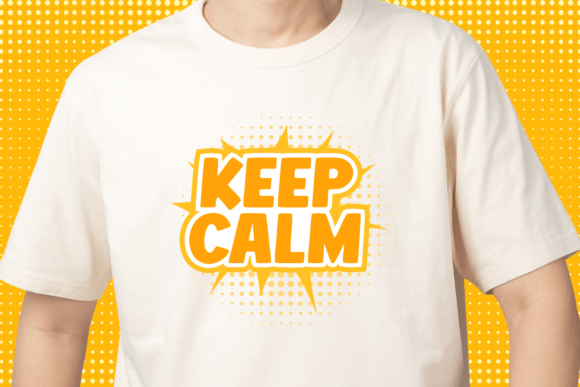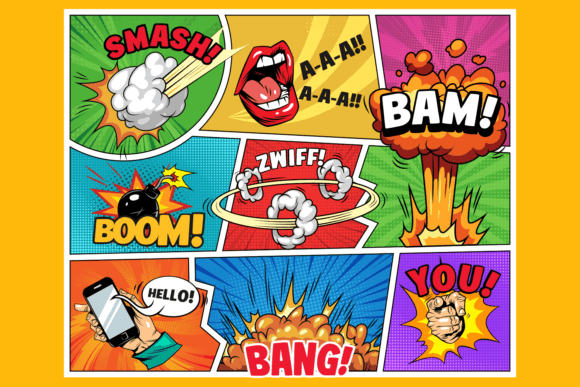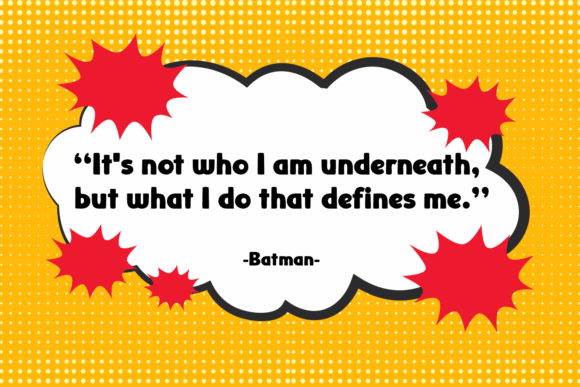
Discover the Charm of Brody Comic Font: Elevate Your Creative Projects
Are you on the hunt for a font that can add a playful yet impactful touch to your creative projects? Look no further than the Brody Comic Font. This lovely comic-style display font is making waves in the design community, and for good reason. Its thick, beautiful lines make it the perfect addition to any designer’s font library.
What Makes Brody Comic Font So Special?
Brody Comic Font stands out from the crowd with its unique blend of playfulness and sophistication. Here are just a few reasons why designers and crafters are falling in love with this font:
- Comic-Style Charm: Brody Comic Font boasts a classic comic-style aesthetic that’s sure to capture attention. Its bold lines and vibrant personality make it perfect for projects that require a fun and energetic vibe.
- Versatility: Despite its bold appearance, Brody Comic Font is surprisingly versatile. It can be used for a wide range of projects, from posters and flyers to digital graphics and craft projects.
- Easy to Read: One of the key benefits of Brody Comic Font is its readability. Even at larger sizes, the font remains clear and easy to read, making it perfect for headlines, titles, and short paragraphs of text.
So, what can you create with Brody Comic Font? The possibilities are truly endless. Here are a few ideas to get you started:
- Posters and Flyers: Use Brody Comic Font to create eye-catching posters and flyers for events, promotions, or announcements.
- Digital Graphics: Add a playful touch to your social media graphics, blog posts, and website headers with this charming font.
- Craft Projects: Brody Comic Font is perfect for crafters who love to make handmade cards, scrapbook pages, and other paper crafts.
- Branding and Packaging: Use Brody Comic Font to create bold, eye-catching branding and packaging that stands out on store shelves.
Tips for Using Brody Comic Font
To get the most out of Brody Comic Font, here are a few tips to keep in mind:
- Use it Boldly: Brody Comic Font is designed to make a statement, so don’t be afraid to use it in bold, eye-catching ways.
- Experiment with Colors: The font’s thick lines and bold appearance make it perfect for use with bright, vibrant colors.
- Pair it with Other Fonts: Brody Comic Font pairs well with a variety of other fonts, including sans-serif fonts and script fonts.
In conclusion, Brody Comic Font is a versatile and charming font that’s perfect for designers and crafters looking to add a playful touch to their creative projects. With its bold lines, easy readability, and endless possibilities for use, it’s no wonder that this font is quickly becoming a favorite among design enthusiasts. So why wait? Download Brody Comic Font today and discover the endless possibilities for yourself!